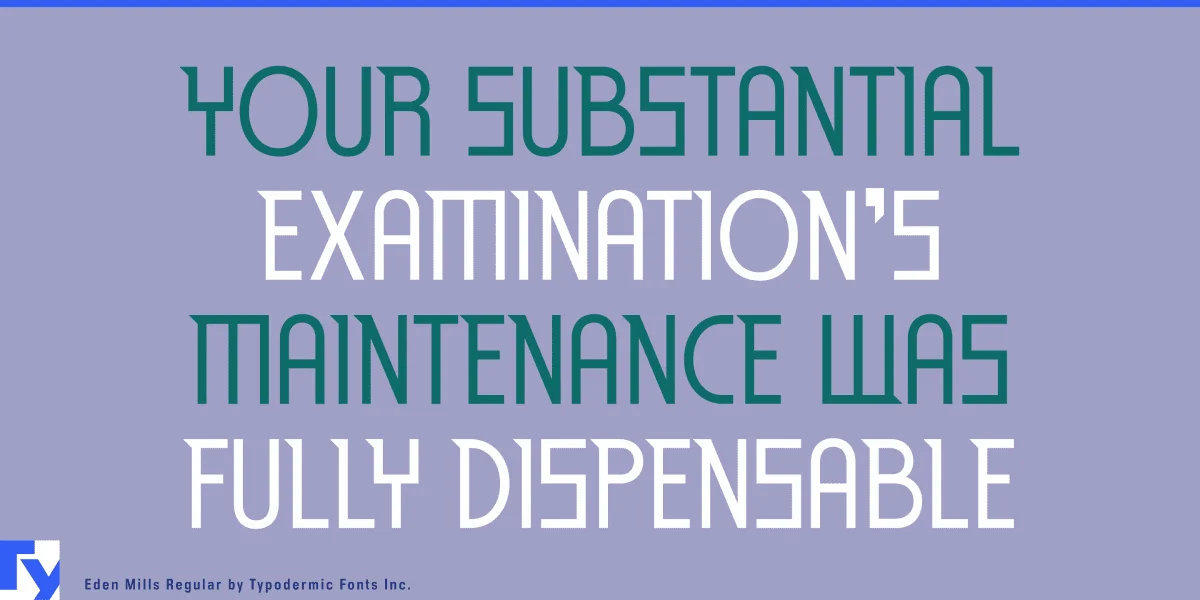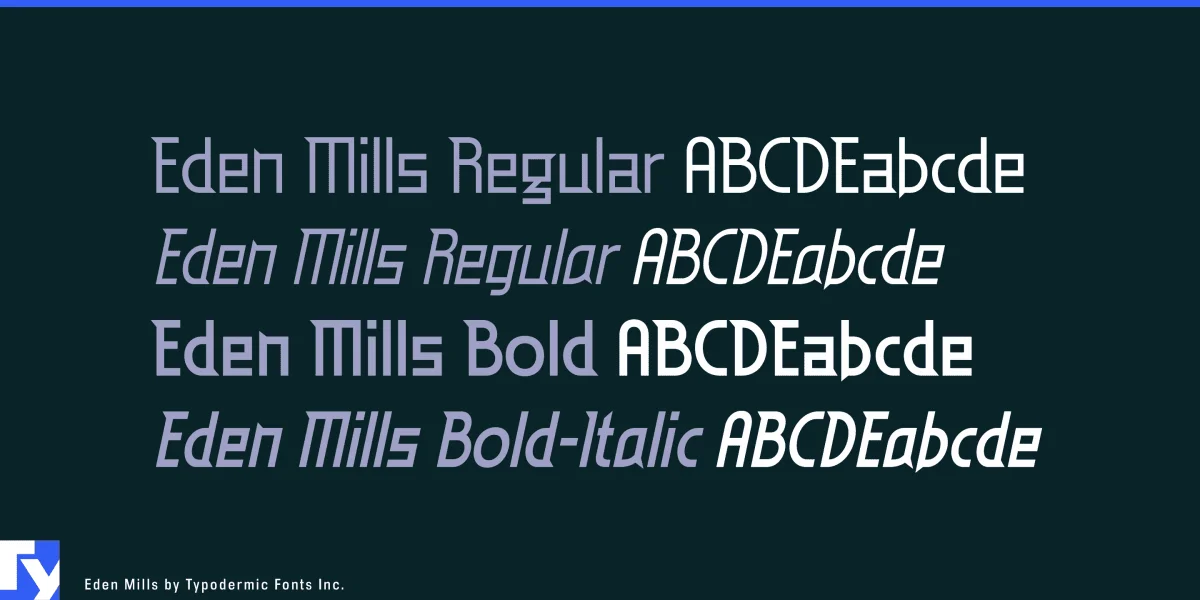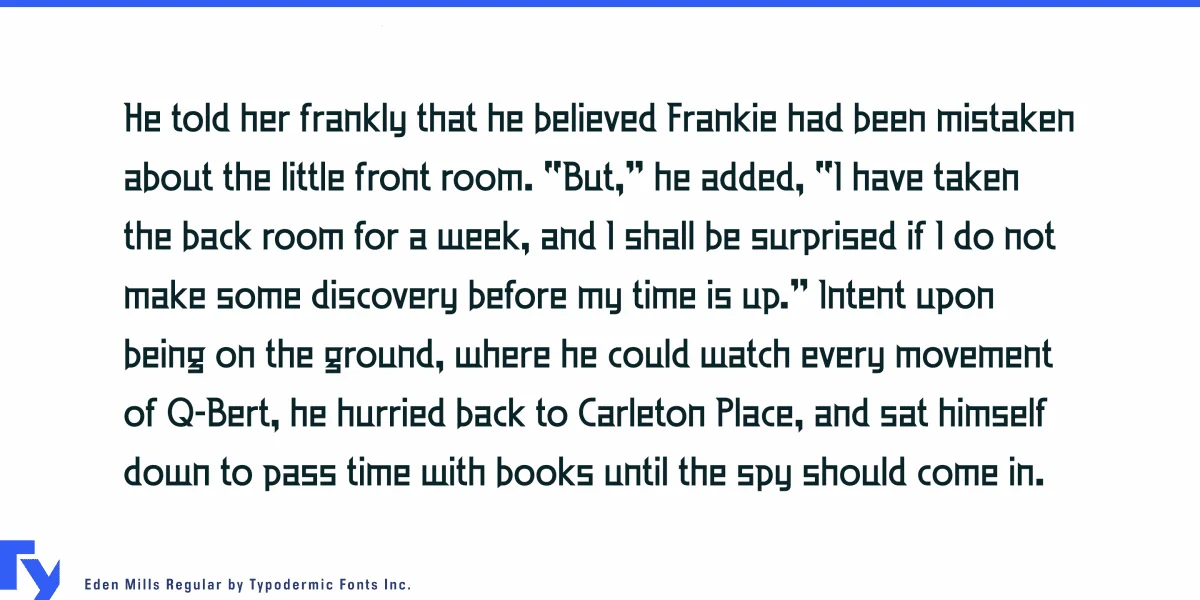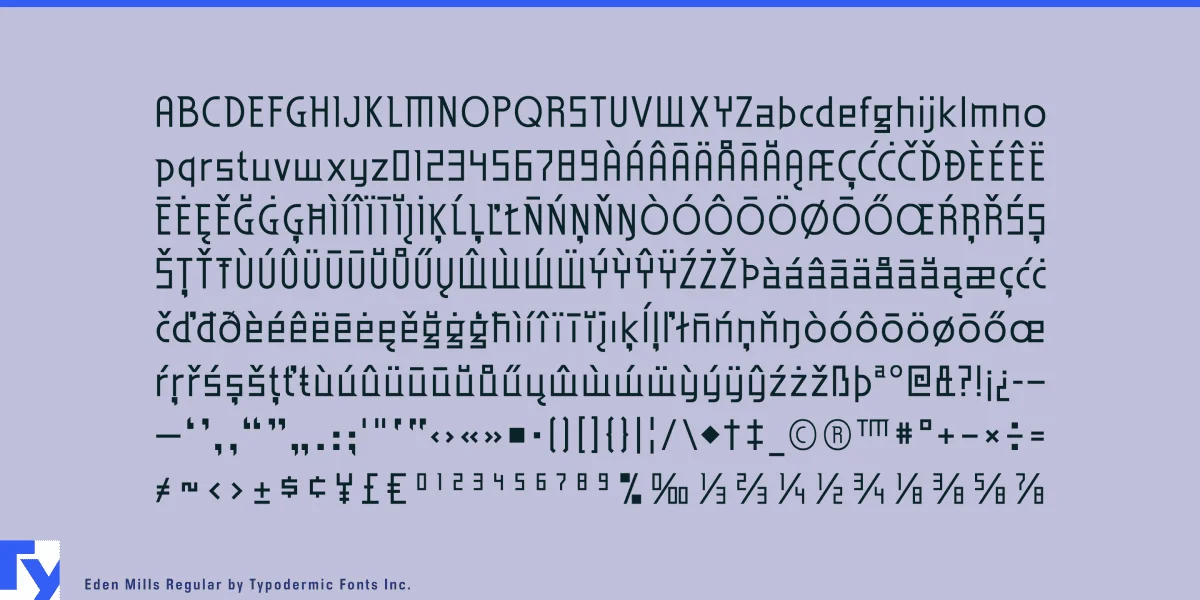
Eden Mills is a postmodern typeface with unexpected characteristics. Square parts are round, while round parts are square. Sharp spikes protrude in unexpected directions. It will convey your message in an original manner. Eden Mills is available in Regular, Bold and italics. Most Latin-based European writing systems are supported, including the following languages. Afaan Oromo, Afar, Afrikaans, Albanian, Alsatian, Aromanian, Aymara, Bashkir (Latin), Basque, Belarusian (Latin), Bemba, Bikol, Bosnian, Breton, Cape Verdean, Creole, Catalan, Cebuano, Chamorro, Chavacano, Chichewa, Crimean Tatar (Latin), Croatian, Czech, Danish, Dawan, Dholuo, Dutch, English, Estonian, Faroese, Fijian, Filipino, Finnish, French, Frisian, Friulian, Gagauz (Latin), Galician, Ganda, Genoese, German, Greenlandic, Guadeloupean Creole, Haitian Creole, Hawaiian, Hiligaynon, Hungarian, Icelandic, Ilocano, Indonesian, Irish, Italian, Jamaican, Kaqchikel, Karakalpak (Latin), Kashubian, Kikongo, Kinyarwanda, Kirundi, Kurdish (Latin), Latvian, Lithuanian, Lombard, Low Saxon, Luxembourgish, Maasai, Makhuwa, Malay, Maltese, Māori, Moldovan, Montenegrin, Ndebele, Neapolitan, Norwegian, Novial, Occitan, Ossetian (Latin), Papiamento, Piedmontese, Polish, Portuguese, Quechua, Rarotongan, Romanian, Romansh, Sami, Sango, Saramaccan, Sardinian, Scottish Gaelic, Serbian (Latin), Shona, Sicilian, Silesian, Slovak, Slovenian, Somali, Sorbian, Sotho, Spanish, Swahili, Swazi, Swedish, Tagalog, Tahitian, Tetum, Tongan, Tshiluba, Tsonga, Tswana, Tumbuka, Turkish, Turkmen (Latin), Tuvaluan, Uzbek (Latin), Venetian, Vepsian, Võro, Walloon, Waray-Waray, Wayuu, Welsh, Wolof, Xhosa, Yapese, Zapotec Zulu and Zuni.